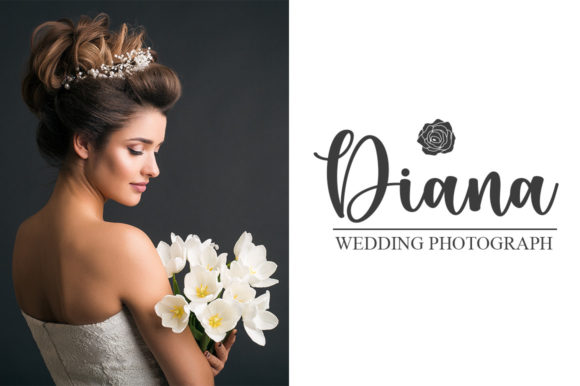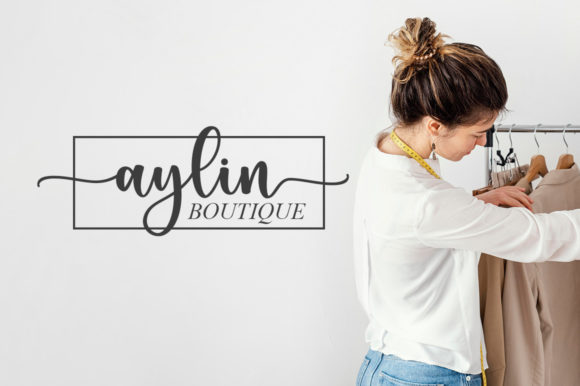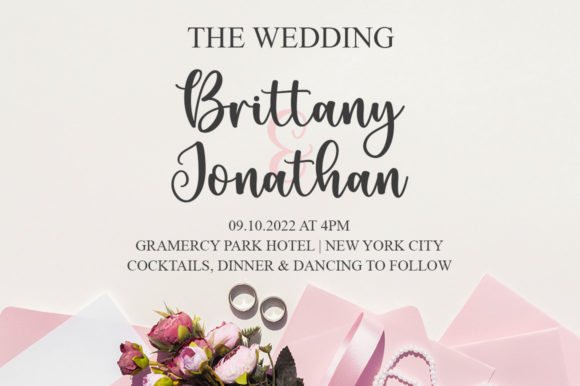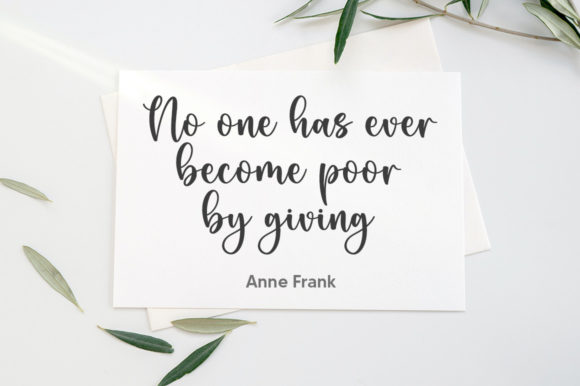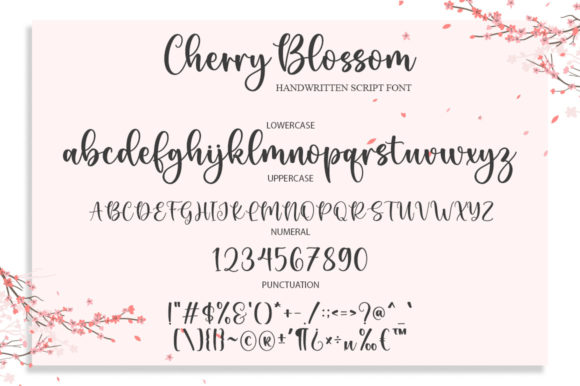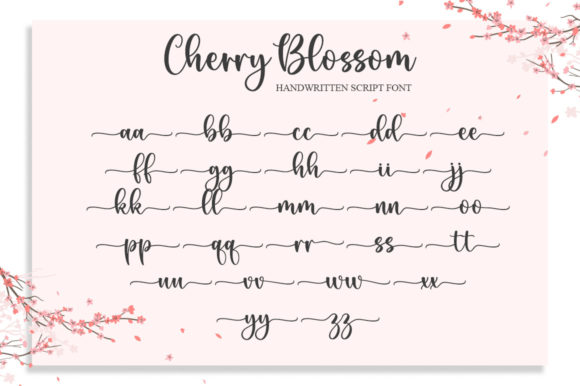
Introducing Cherry Blossom Font: A Timeless Handwritten Delight
Are you a designer or crafter looking for a font that can add a touch of elegance and whimsy to your creations? Look no further than the Cherry Blossom font! This lovely and timeless handwritten font is perfect for creating eye-catching logos, branding, and quotes that will leave a lasting impression.
What Makes Cherry Blossom Font So Special?
Cherry Blossom font is a beautifully crafted handwritten font that exudes a sense of sophistication and charm. Its unique and flowing script is reminiscent of traditional Japanese calligraphy, making it perfect for designs that require a touch of Eastern elegance. The font is also incredibly versatile, making it suitable for a wide range of design applications, from logos and branding to quotes and social media graphics.
One of the standout features of Cherry Blossom font is its PUA (Private Use Area) encoding. This means that you can access all of the glyphs and swashes with ease, giving you complete creative control over your designs. With PUA encoding, you can effortlessly insert special characters, ligatures, and ornaments into your text, allowing you to create truly unique and eye-catching designs.
Cherry Blossom font is a dream come true for designers and crafters who want to add a personal touch to their creations. Whether you’re designing a logo, creating a brand identity, or crafting a beautiful quote, this font is sure to impress. Its elegant and flowing script makes it perfect for designs that require a touch of sophistication, while its versatility ensures that it can be used in a wide range of applications.
Use Cases for Cherry Blossom Font
So, what can you create with Cherry Blossom font? The possibilities are endless! Here are a few ideas to get you started:
- Logos and branding: Use Cherry Blossom font to create a unique and memorable logo that sets your brand apart.
- Quotes and social media graphics: Add a touch of elegance to your quotes and social media graphics with this beautiful handwritten font.
- Stationery and invitations: Create beautiful stationery and invitations that are sure to impress with Cherry Blossom font.
- Packaging and product design: Use this font to add a touch of sophistication to your packaging and product designs.
Tips for Using Cherry Blossom Font
To get the most out of Cherry Blossom font, here are a few tips to keep in mind:
- Experiment with different sizes and colors: Cherry Blossom font looks great in a variety of sizes and colors, so don’t be afraid to experiment and find the perfect combination for your design.
- Use it with contrasting fonts: Pair Cherry Blossom font with a contrasting font to create visual interest and add depth to your design.
- Take advantage of PUA encoding: Make sure to explore all of the glyphs and swashes available with PUA encoding to add a personal touch to your designs.
Cherry Blossom font is a timeless and elegant handwritten font that is perfect for designers and crafters who want to add a touch of sophistication to their creations. With its PUA encoding and versatile design, it’s sure to become a go-to font for a wide range of design applications. So why wait? Download Cherry Blossom font today and start creating beautiful designs that will leave a lasting impression!